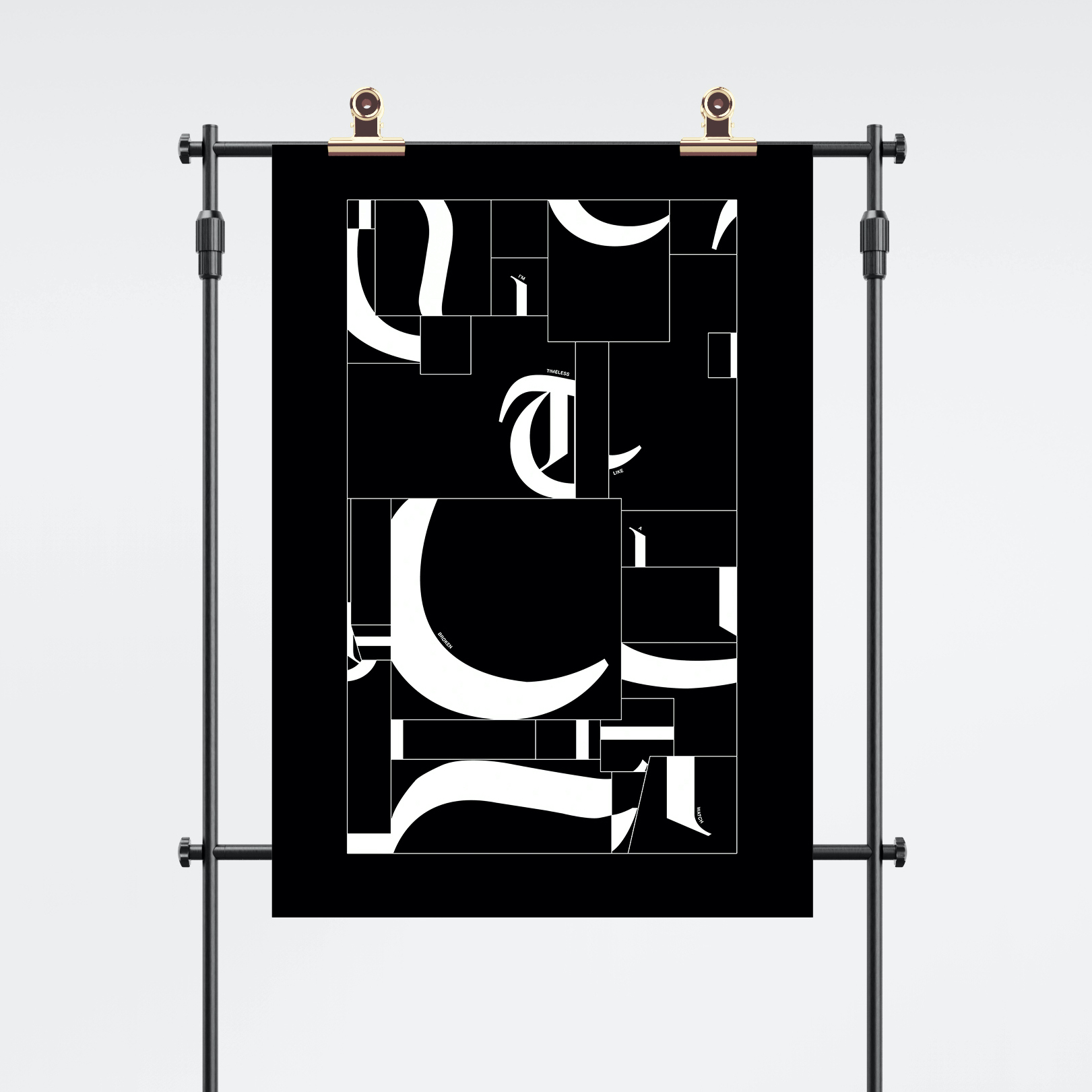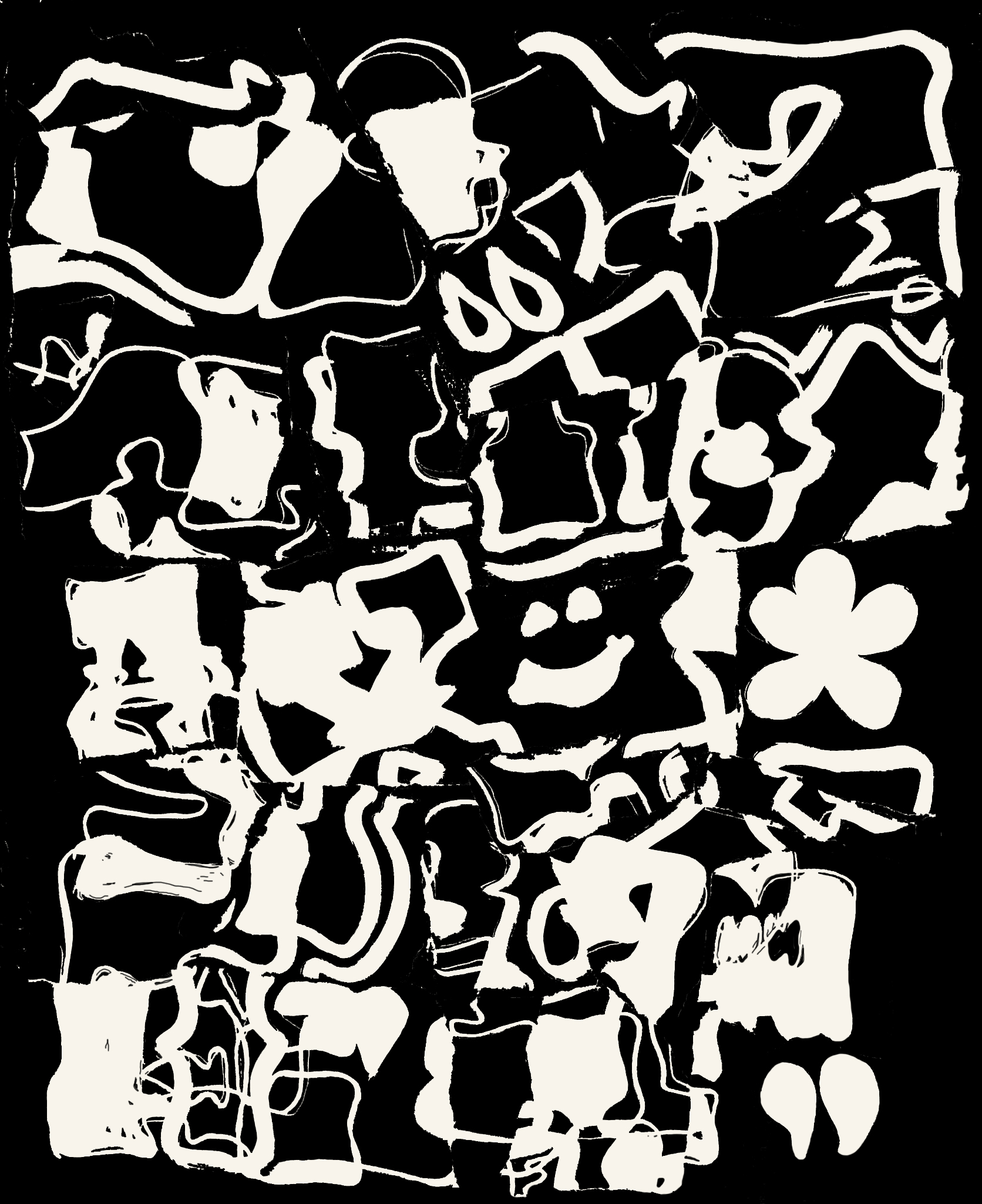
Letterforms as feeling.
Limited-run prints and commissioned typographic pieces. Each one is designed to express something—sometimes specific, sometimes sensory. We offer both ready-made and one-on-one projects. Think of these as studies in tone and texture, made tangible.